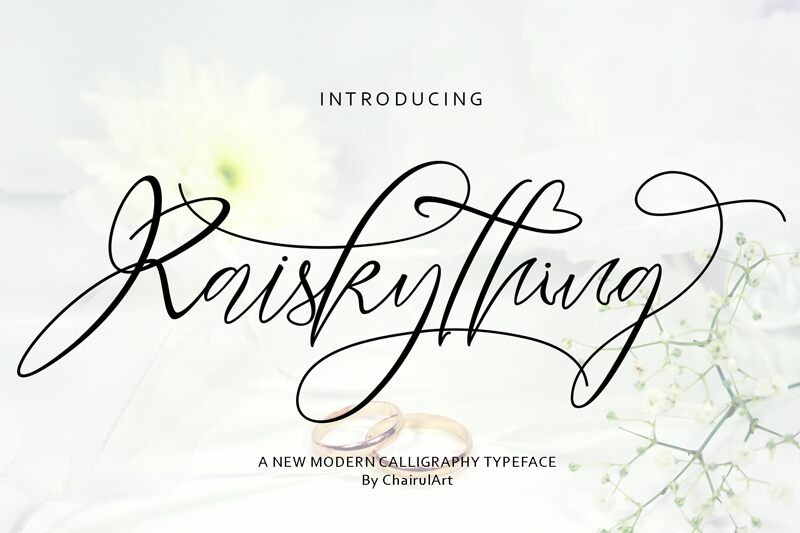
Heartkything
Heartkything, the exquisite calligraphy font by khairul, gracefully captures the essence of elegance and sophistication. With its light weight and extra-condensed width, Heartkything is perfect for projects that demand a touch of delicacy and refinement. Ideal for wedding invitations, luxury branding, and feminine product packaging, this typeface is bound to make a statement. Let Heartkything's flowing curves and graceful strokes elevate your designs to new heights, as it adds a timeless charm that will captivate any audience. Embrace the artistry of Heartkything and bring an air of enchantment to your creative endeavors.